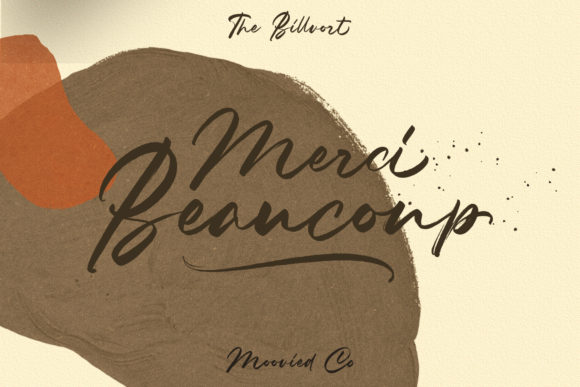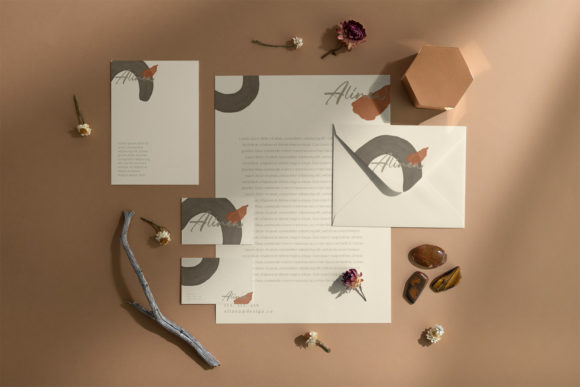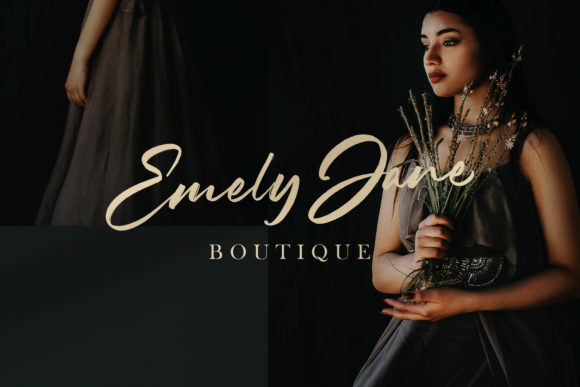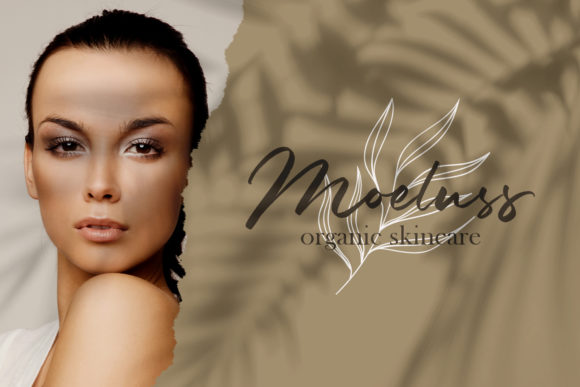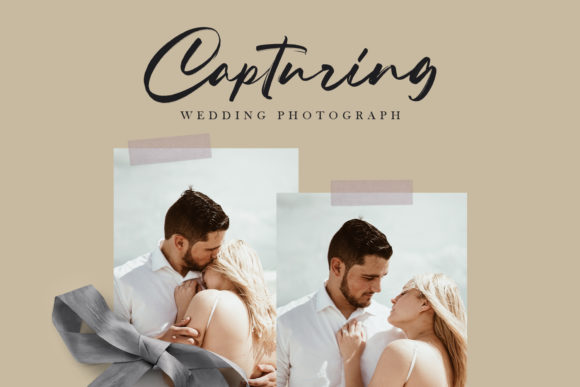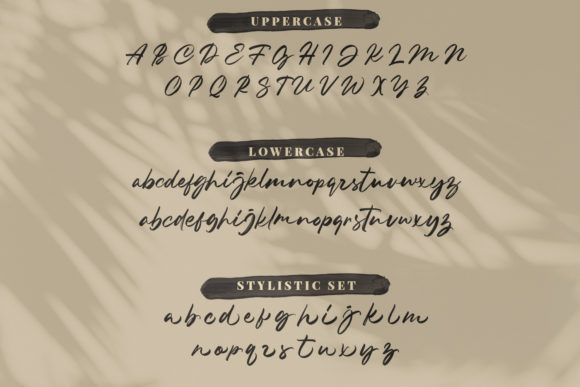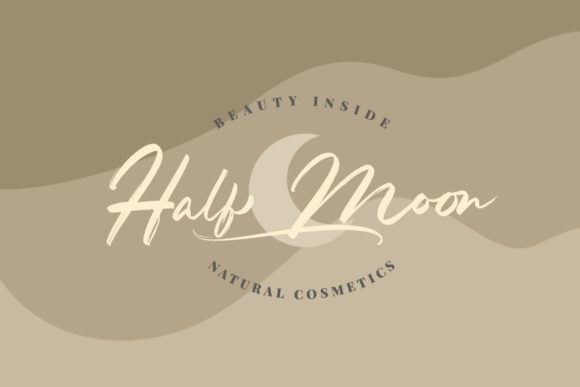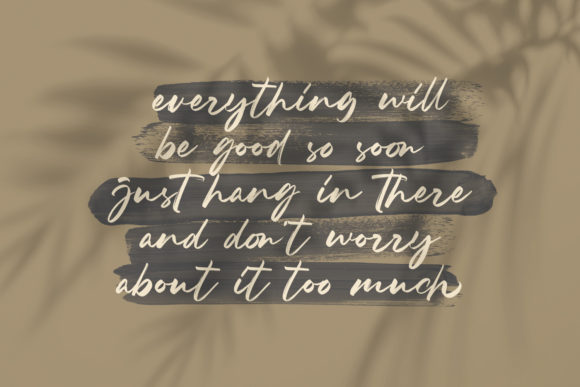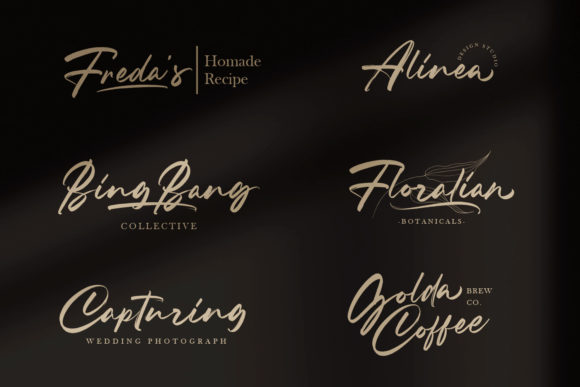
The Billvort Font
About The Billvort Font
The Billvort is a flowing handwritten font, described by an elegant touch, perfect for your favorite projects. Fall in love with its incredibly distinct and timeless style and use it to create spectacular designs!